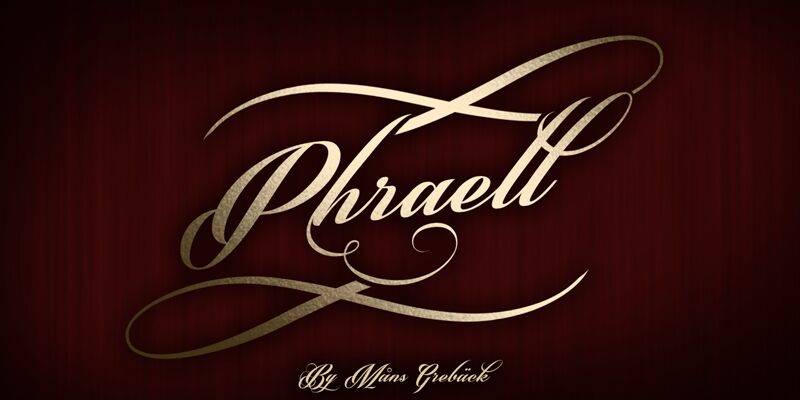
Phraell by Måns Grebäck is a free calligraphic script with sweeping capitals and extreme thick-thin contrast. Its long, taut entry strokes curl into broad loops, and narrow hairlines weave through weighty downstrokes with sharply pointed ends and tightly folded joins, creating an ornate silhouette.
Designers working in luxury, fashion, or formal-event markets will find it suited to perfume packaging, invitation suites, and boutique branding, where the extravagant flourishes can become part of the decorative motif. In publishing, it is particularly convincing for fashion editorials and historical-romance covers, lending names or feature titles the air of an elaborate hand-penned inscription.
Use 0–9 to create swashes. For example: P4hraell.